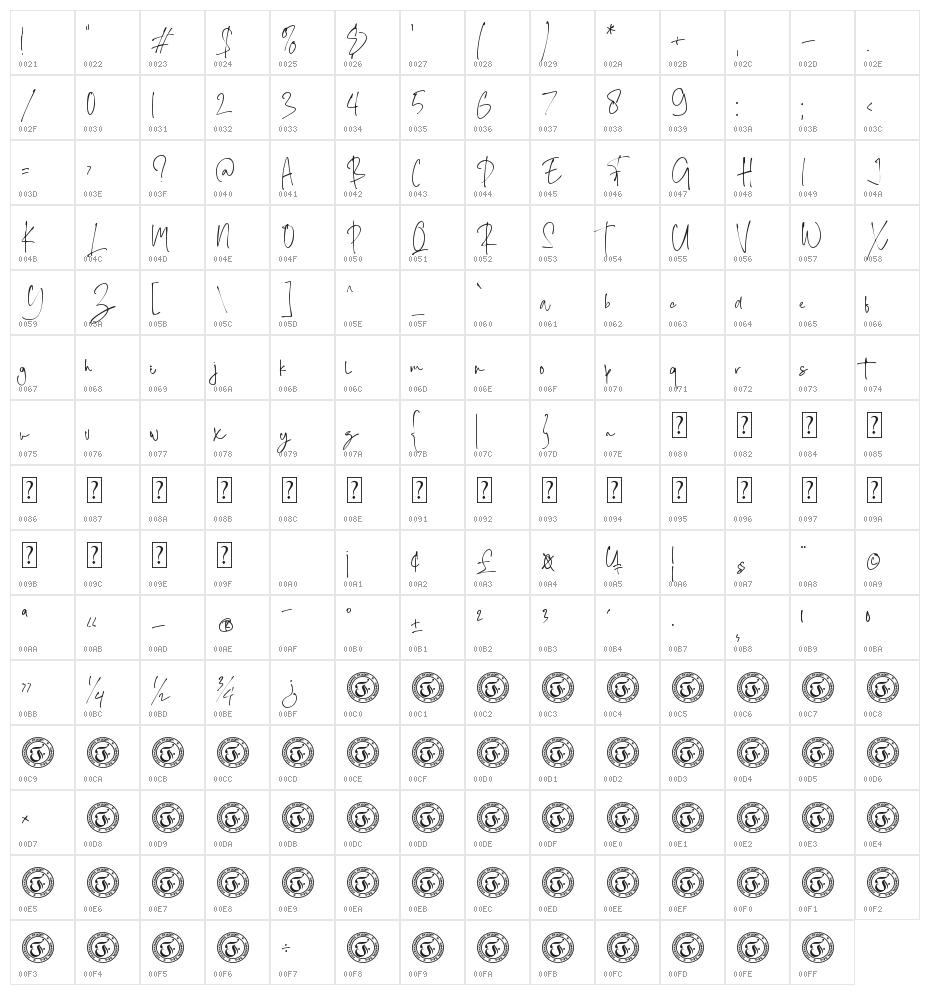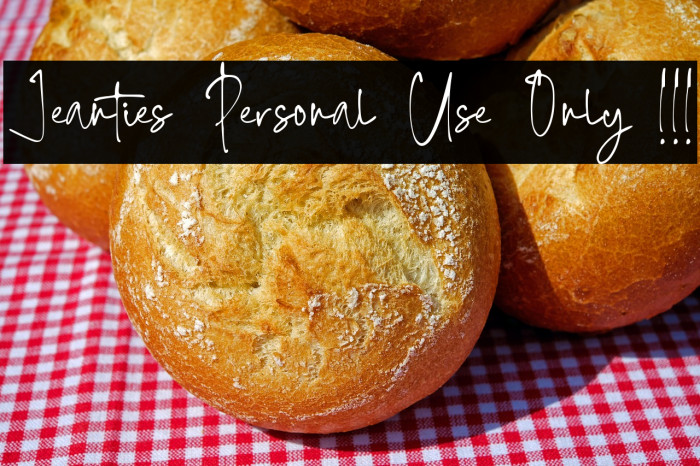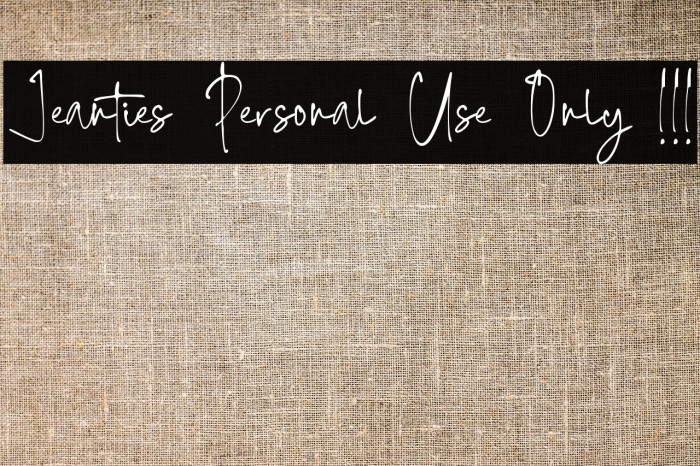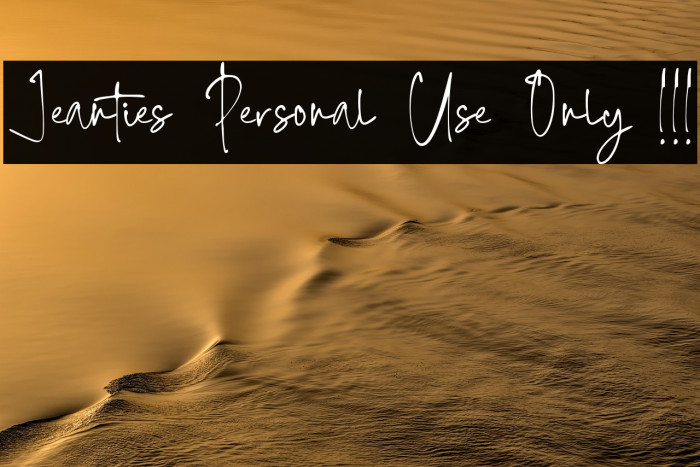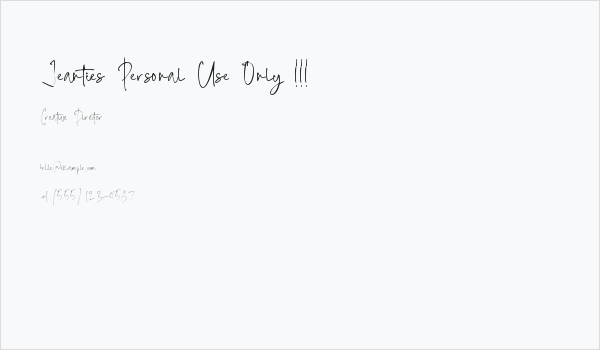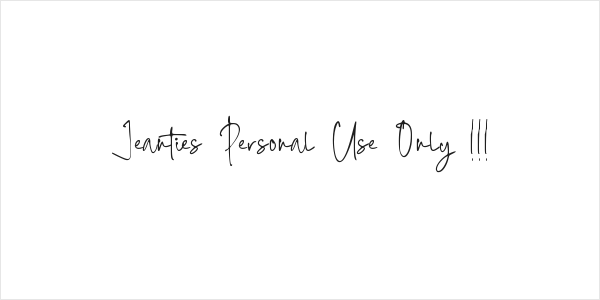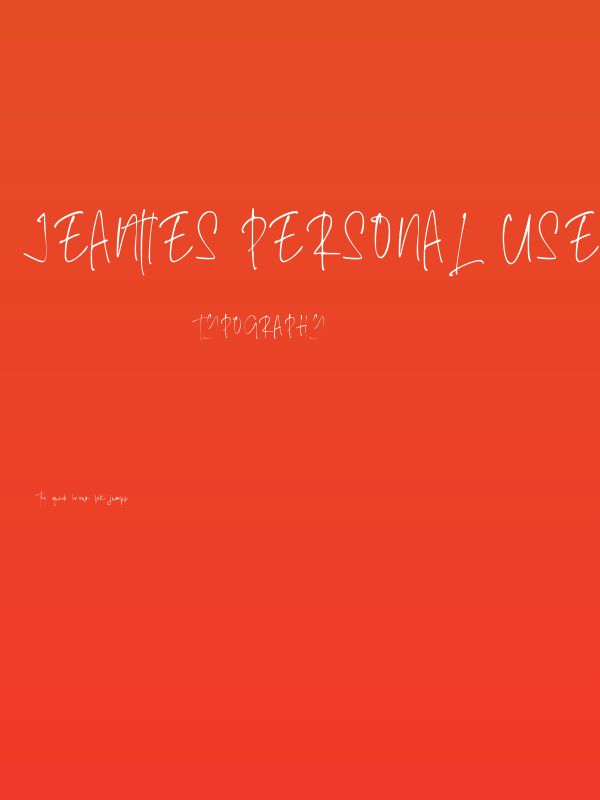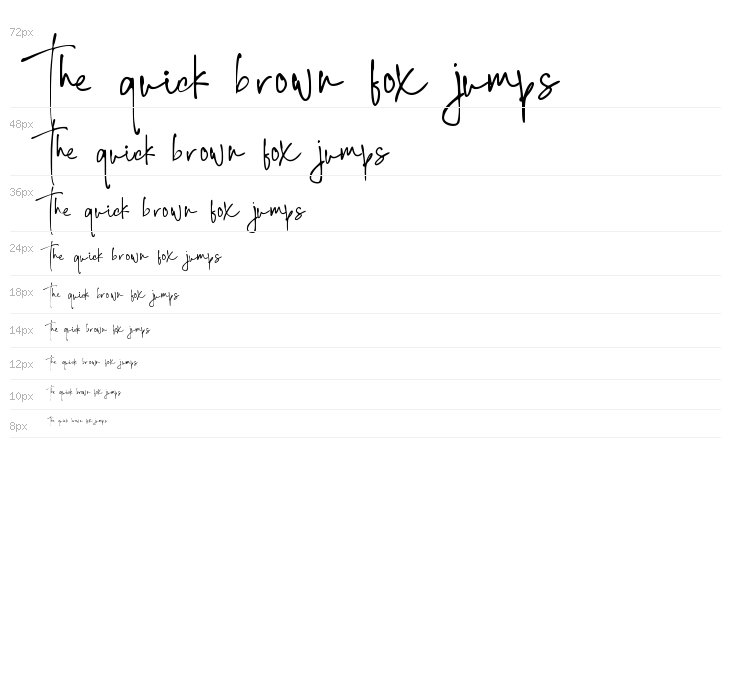
Jeanties Personal Use Only !!! Font
Jeanties Personal Use Only !!! Description
This font features a lively and expressive handwritten style, characterized by its fluid and dynamic strokes. The letters exhibit a casual yet artistic flair, with varying line thickness that adds a sense of movement and personality. The uppercase letters are tall and slightly narrow, while the lowercase letters maintain a consistent flow, enhancing readability. Numbers and special characters follow the same energetic style, making them visually cohesive with the alphabet. The overall design is playful and modern, suitable for projects that require a personal touch.